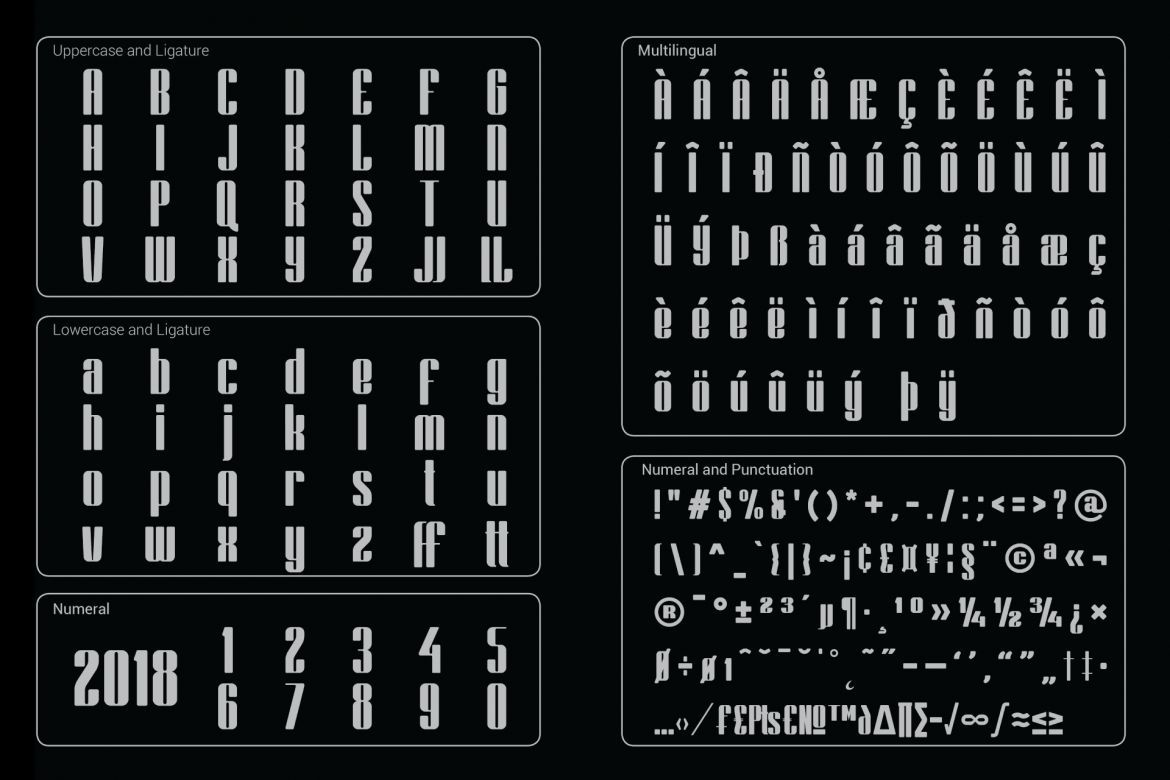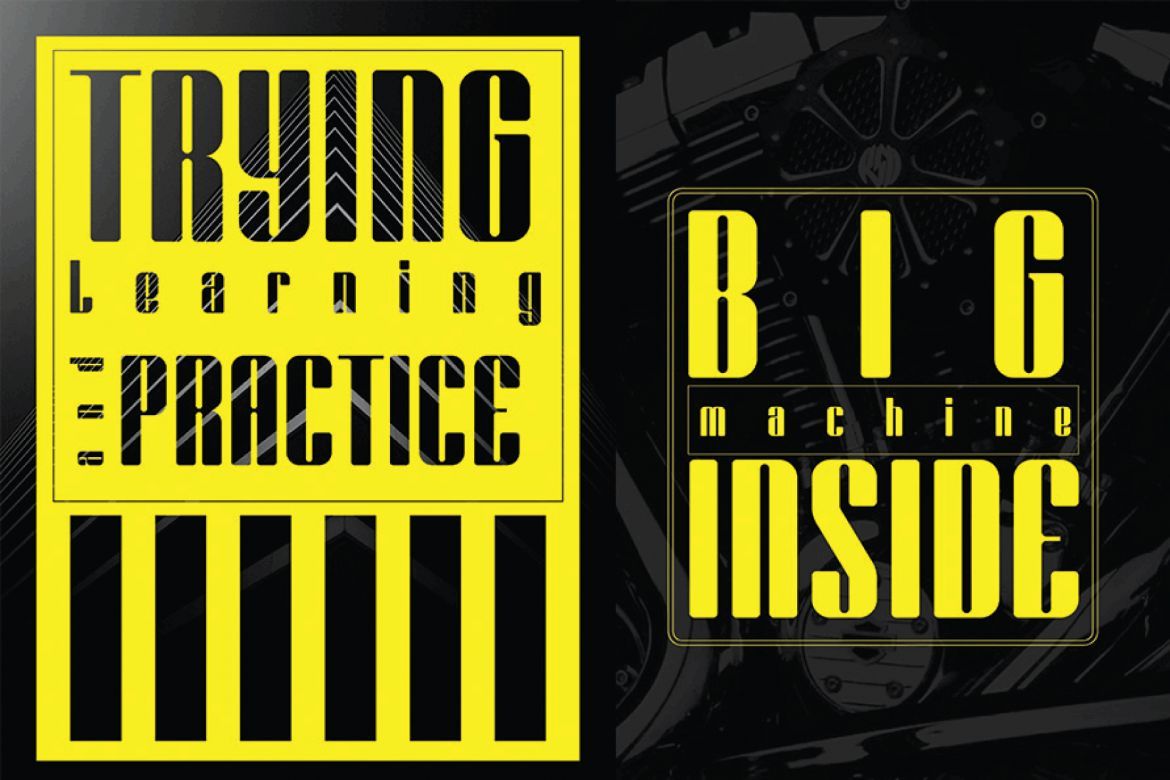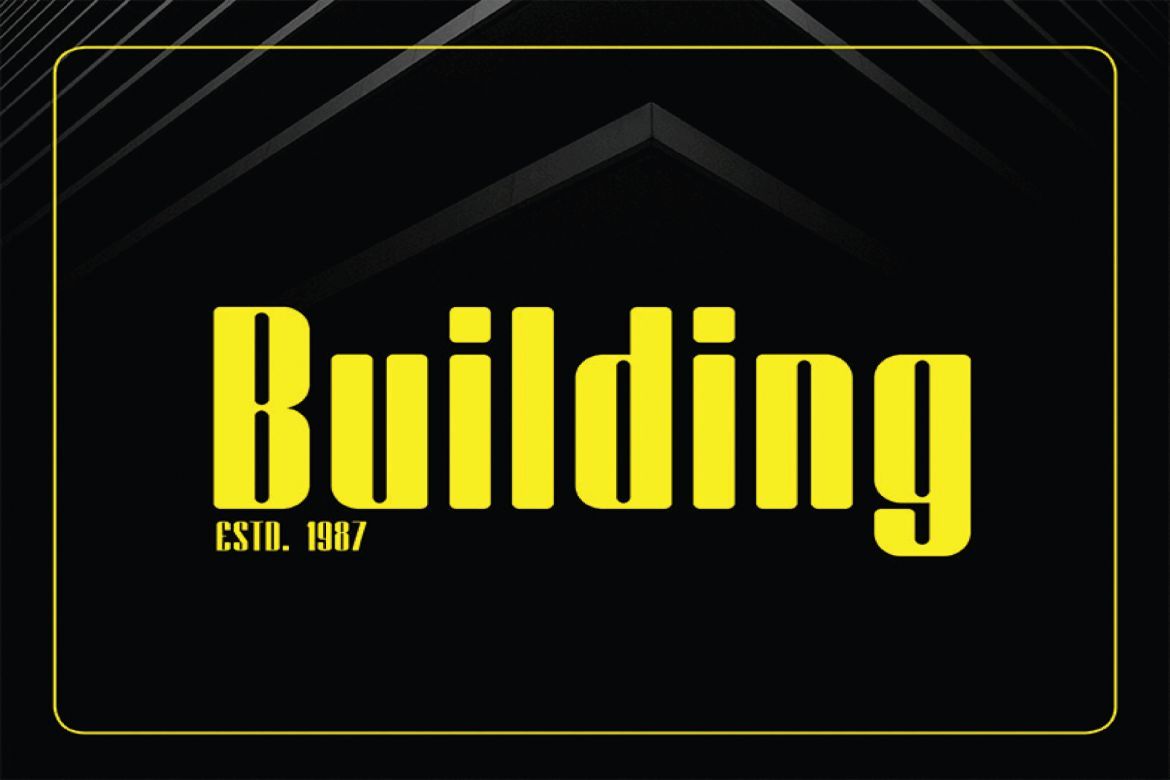
Bornco Display Font
This is what Bornco was created for,Strongly characterized, sturdy and solid,it's the best option for editorial,name or brand of world desing,with a firm and charismatic shape, bronco will be the best choice for you
• uppercase and lowercase